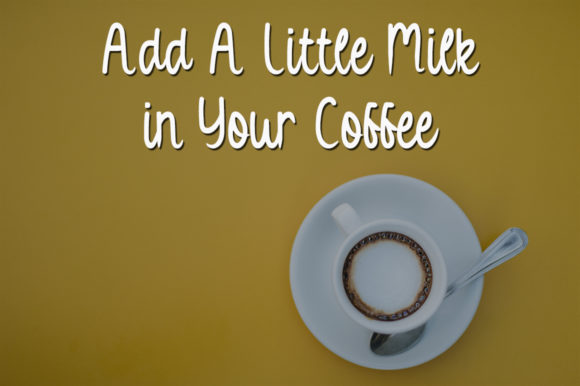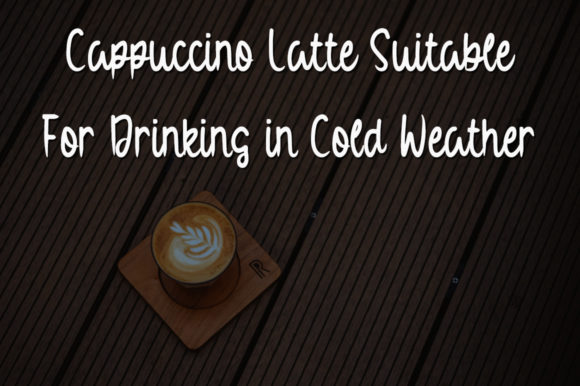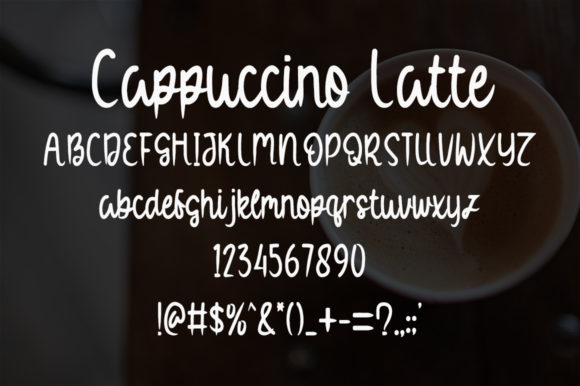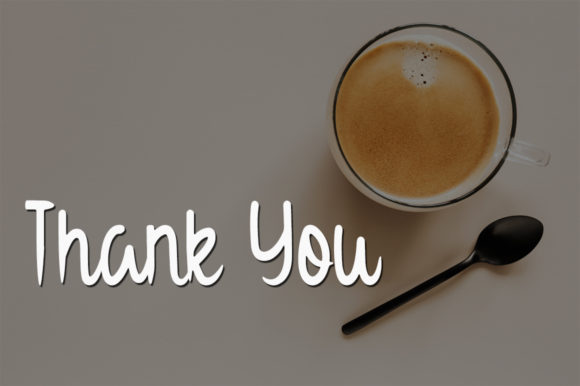
Discover the Perfect Blend: Cappuccino Latte Font
Enter the Cappuccino Latte Font, a flowing handwritten font that adds an elegant touch to any project. With its incredibly distinct and timeless style, it’s the perfect choice for designers looking to create spectacular designs that stand out from the crowd. Whether you’re working on a branding project, a website, or a social media campaign, the Cappuccino Latte Font is a valuable asset that’s sure to elevate your work.
- Font Family: Cappuccino Latte is a script font designed to evoke the feeling of a cappuccino latte.
- Unique Characteristics: Features a hand-drawn, cursive design with a frothy texture, giving it a unique and eye-catching appearance.
- Unique and Creative Design: The Cappuccino Latte Font is a beautiful and creative script font that’s perfect for adding a touch of whimsy to your designs.
- Limited Character Set: The font has a relatively limited character set, which may not be suitable for longer blocks of text.
- May Not Be Suitable for Body Text: Due to its script design, the font may not be the best choice for body text, as it can be difficult to read in large quantities.
The Cappuccino Latte Font is a beautiful and creative script font that’s perfect for adding a touch of whimsy to your designs. While it may have some limitations, it’s a great choice for titles, headings, and other design elements where a unique and eye-catching font is needed. Overall, I’d give it 4 out of 5 stars.
The Cappuccino Latte Font is ideal for creating a warm and inviting atmosphere in designs related to food, coffee, and beverages. Some common use cases include:
- Coffee shop menus and branding
- Food and beverage packaging
- Restaurant and cafe websites
- Wedding and event invitations